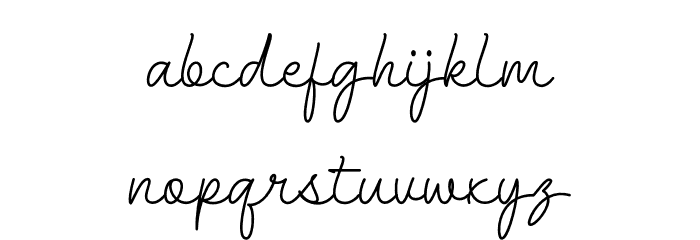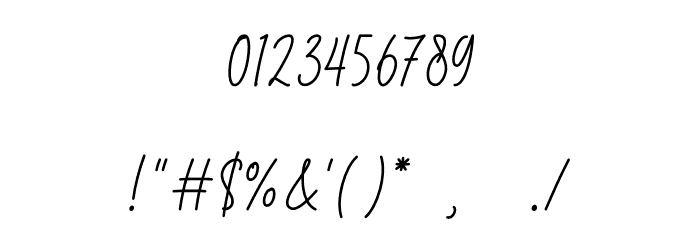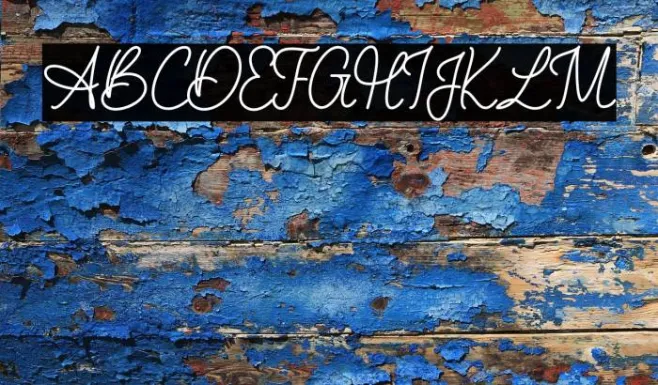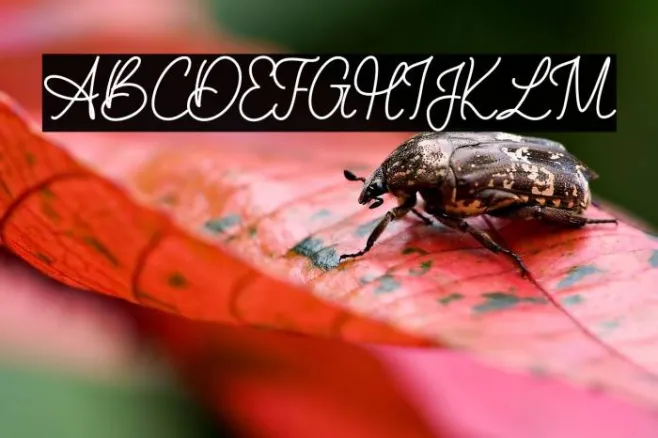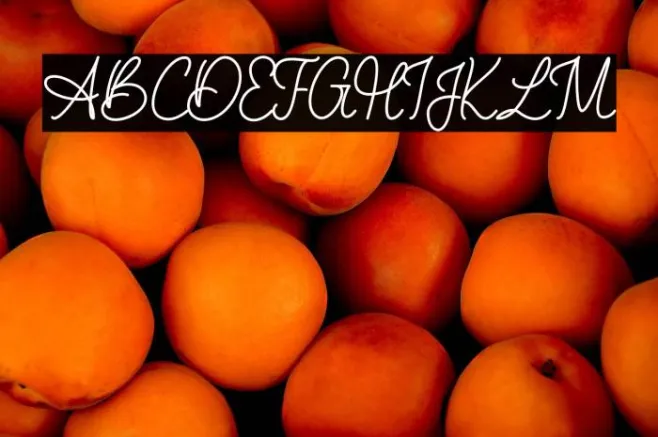
Alexana Font
This font exudes a charming and elegant script style, characterized by its fluid and connected letterforms. The uppercase letters are gracefully elongated with smooth curves, while the lowercase letters maintain a consistent flow, enhancing readability. The numerals are clear and well-proportioned, complementing the overall aesthetic. Special characters are thoughtfully designed, maintaining the font's cohesive look. This script style is perfect for adding a touch of sophistication and personality to any project.
A charming and elegant script font with fluid, connected letterforms.
- Font: Alexana
- Proposed Projects: Ideal for wedding invitations, greeting cards, branding, and elegant logos.
- Category: Script
- Overall Style: Elegant
- Use Case: Logos, Invitations, Greeting Cards